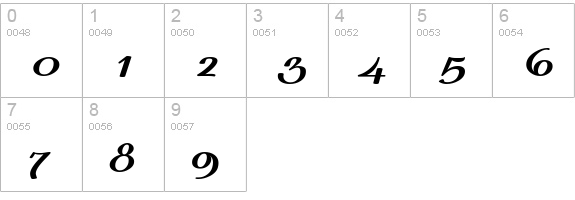
Introducing Ingriana BoldItalic font, a captivating and versatile typeface that seamlessly combines elegance with a touch of modernity. This remarkable font is the perfect choice for those seeking to add a bold and distinct touch to their creative projects. The Ingriana BoldItalic font stands out with its unique blend of strong, bold lines and delicate, italicized strokes. Its charismatic presence effortlessly captures attention and adds a sense of sophistication to any design. Whether you're designing a logo, creating eye-catching headlines, or crafting elegant invitations, this font will undoubtedly elevate your work to new heights. One of the standout features of Ingriana BoldItalic font is its versatility. It effortlessly adapts to various design styles, making it suitable for a wide range of projects. Its bold and italicized nature adds a sense of drama and flair, while its clean and legible letterforms ensure readability even at smaller sizes. But what truly sets Ingriana BoldItalic font apart is that it is available for free. Yes, you read that right! This stunning font is freely available to download at FontsMarket.com. So, whether you're a professional designer, a student, or simply someone with a passion for typography, this font allows you to elevate your designs without breaking the bank. The Ingriana BoldItalic font is a true testament to the power of creativity and accessibility. Its availability for free download opens up a world of possibilities for designers, allowing them to create stunning visuals without compromising on quality or cost. So why wait? Download the Ingriana BoldItalic font today and embark on a journey of limitless creativity.